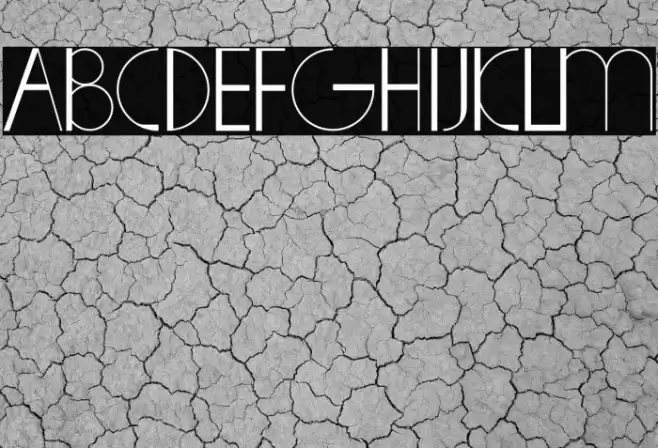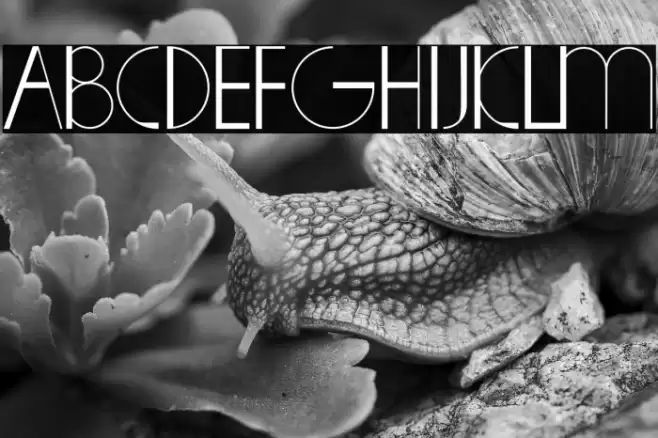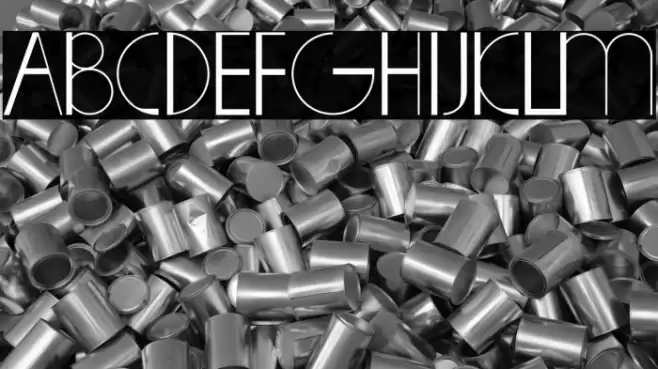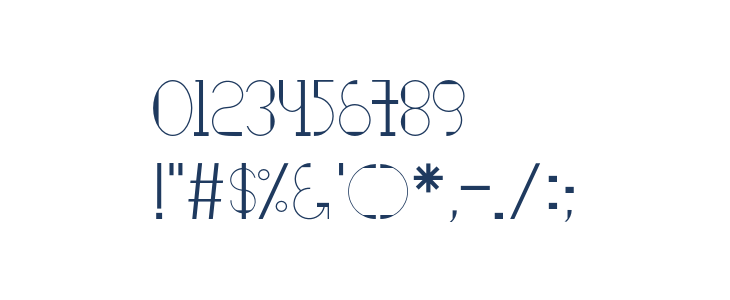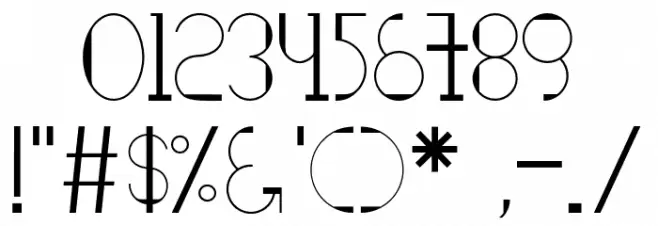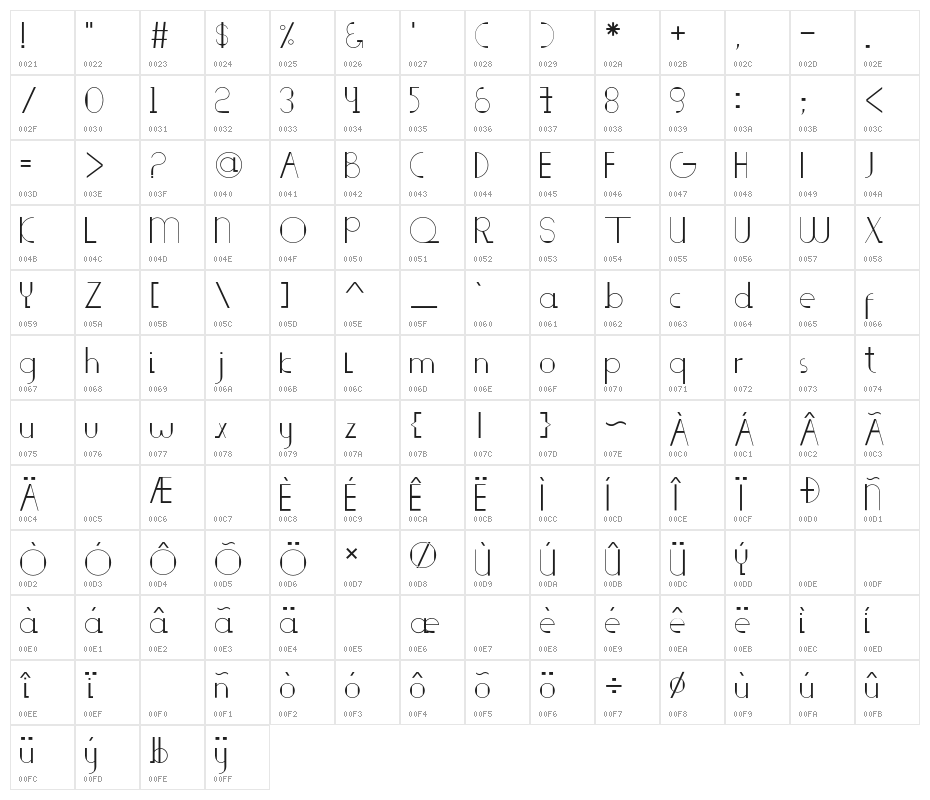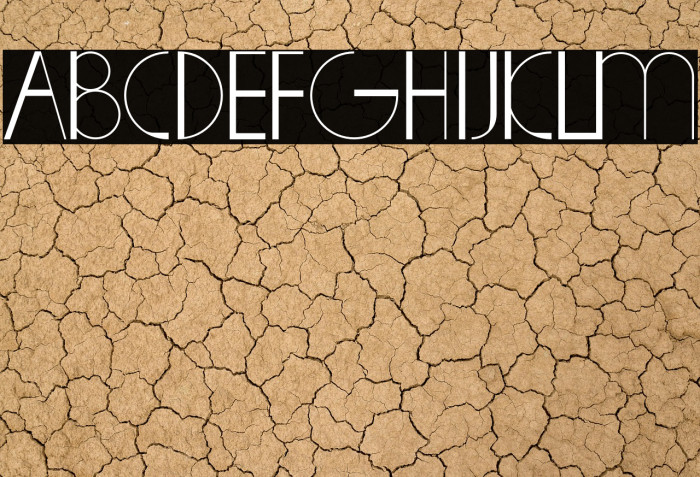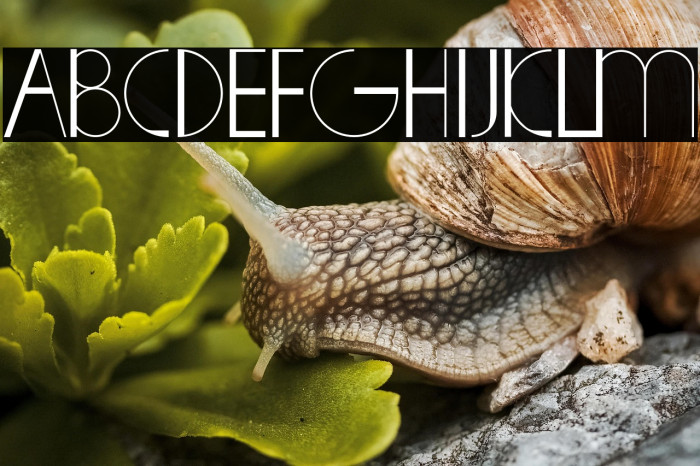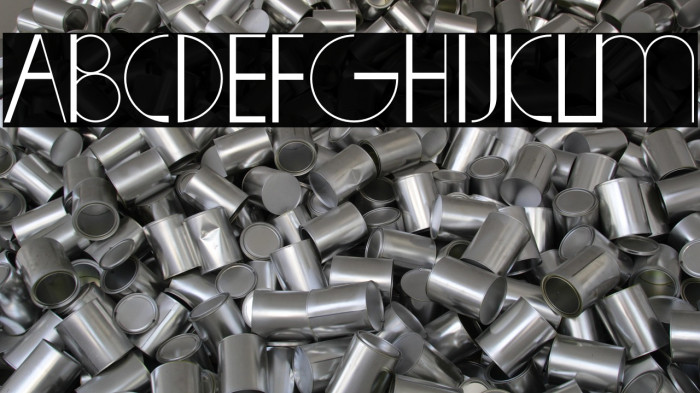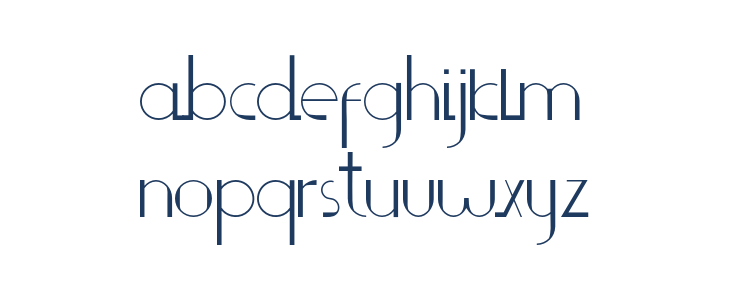
saleng Font
saleng Description
This font features a modern and geometric design with a distinctively sleek and minimalist aesthetic. The characters are composed of clean lines and curves, creating a futuristic and stylish appearance. The uppercase letters are particularly striking, with a mix of sharp angles and smooth curves that give them a unique look. The lowercase letters maintain the same geometric style, ensuring consistency across the typeface. Numbers and special characters are also designed with the same attention to detail, making this font versatile for various applications.
A modern, geometric font with sleek lines and a minimalist aesthetic from Uncategorized fonts.
- Font: saleng
- Proposed Projects: Ideal for branding projects, modern web design, tech-related materials, and futuristic posters.